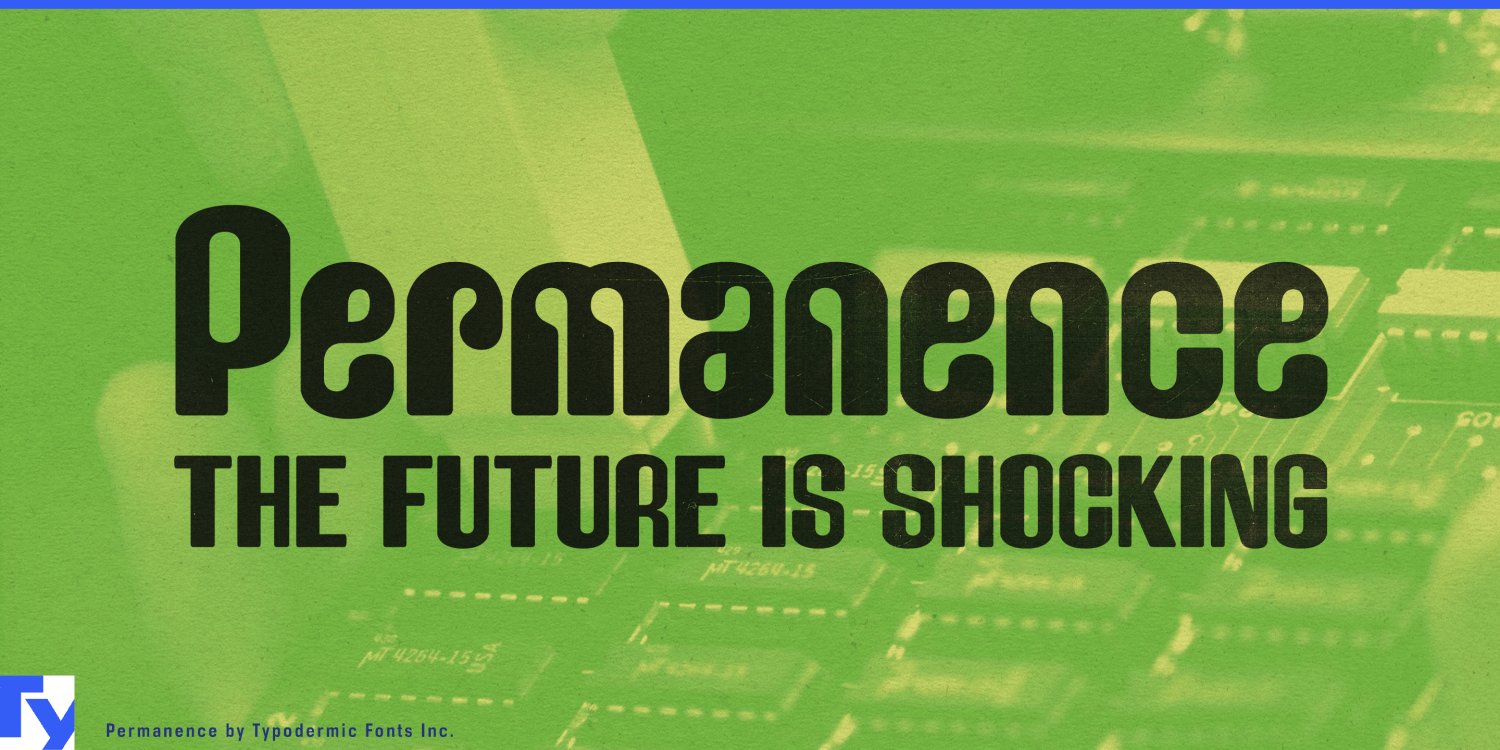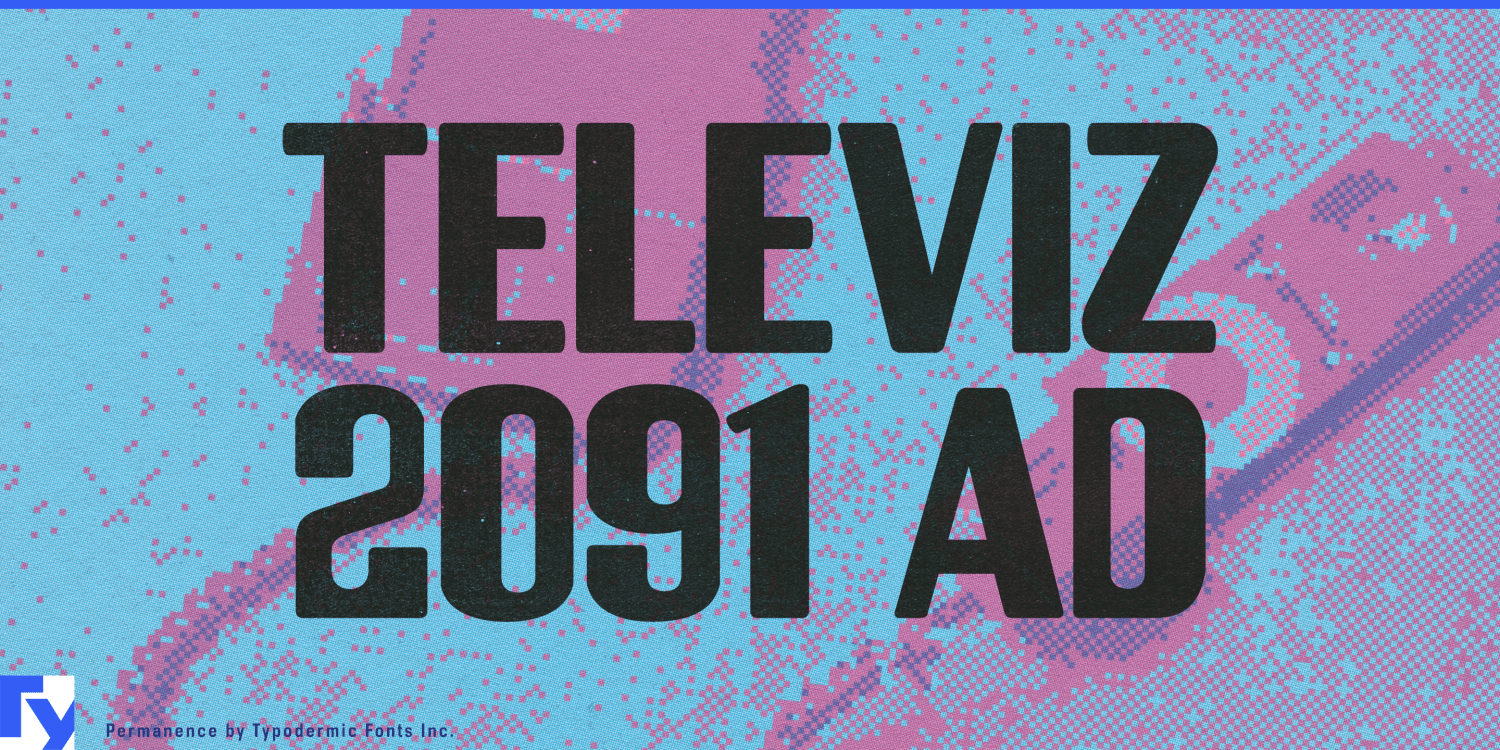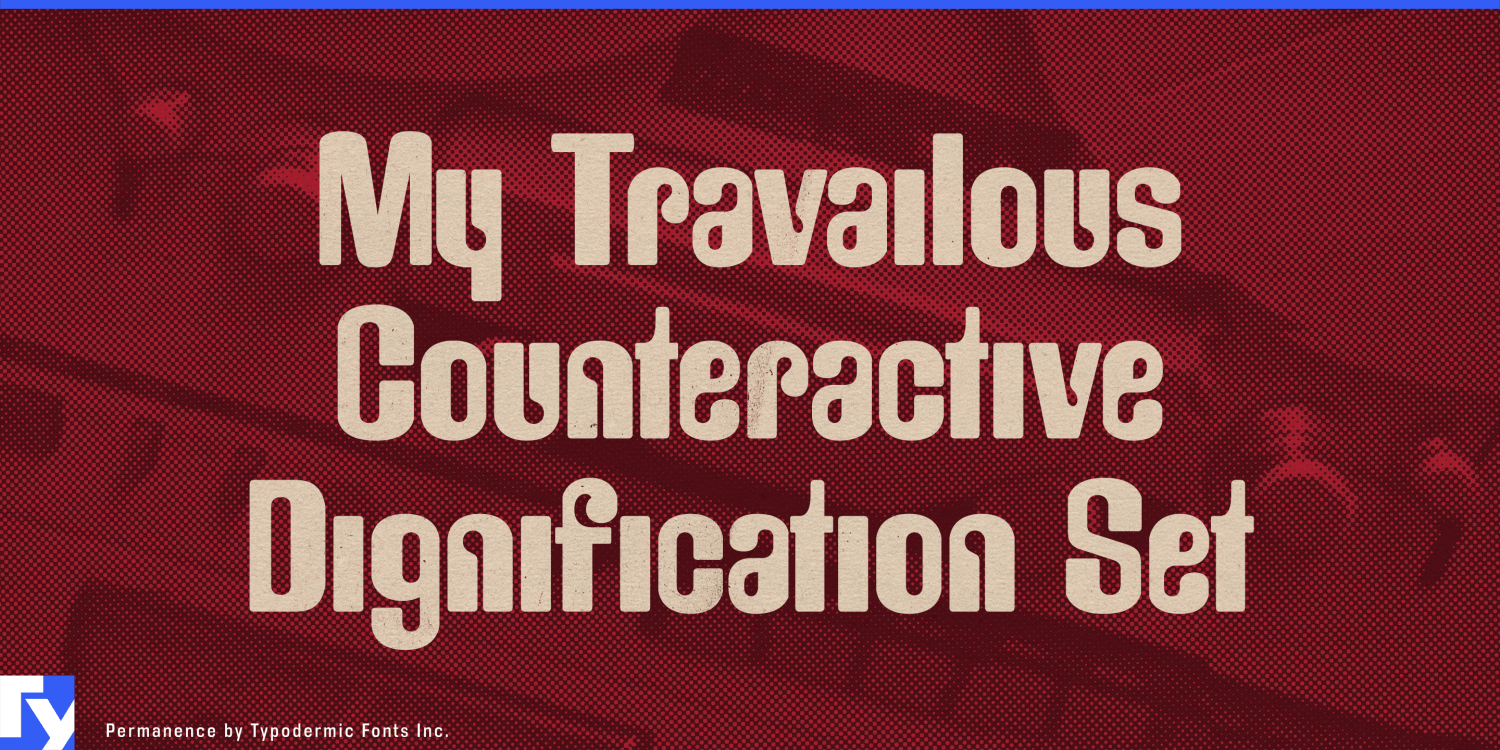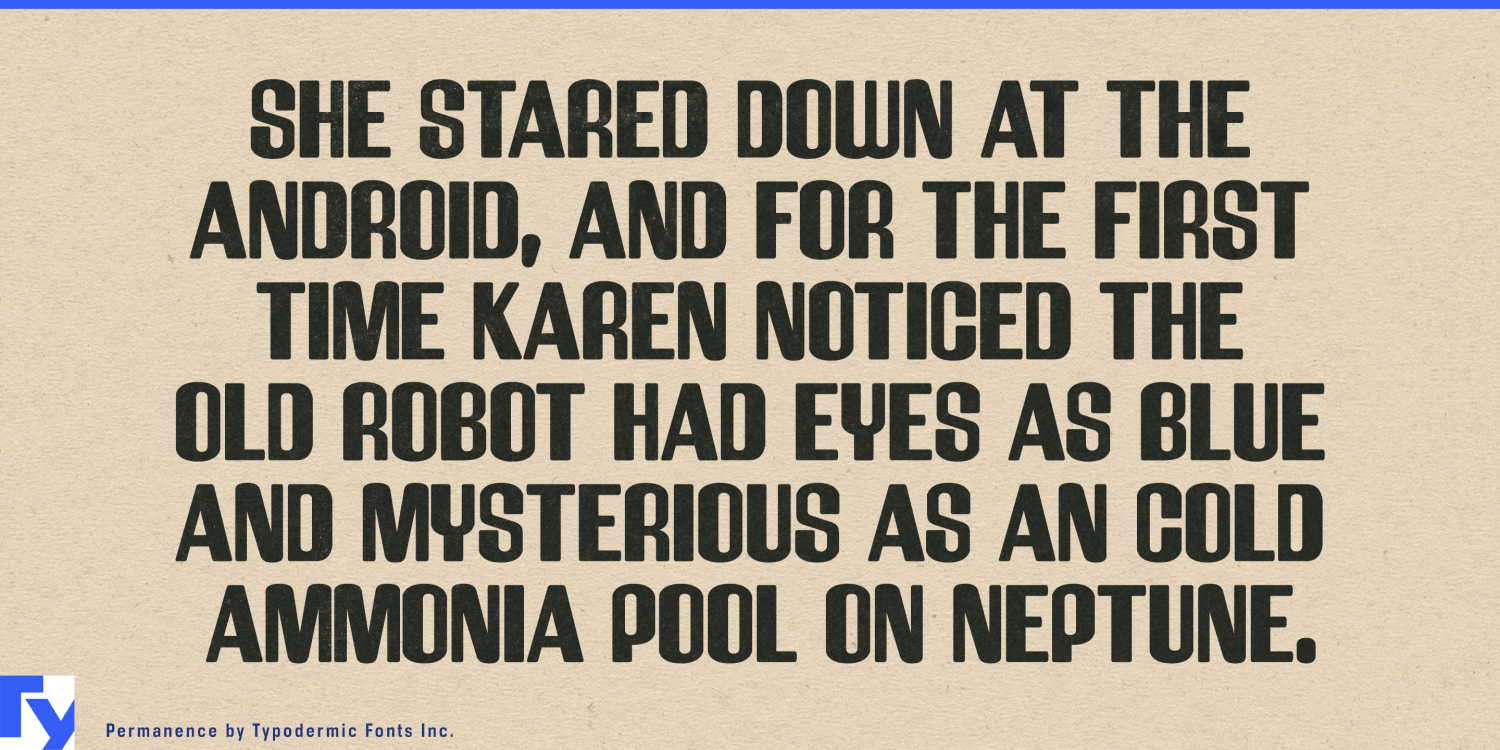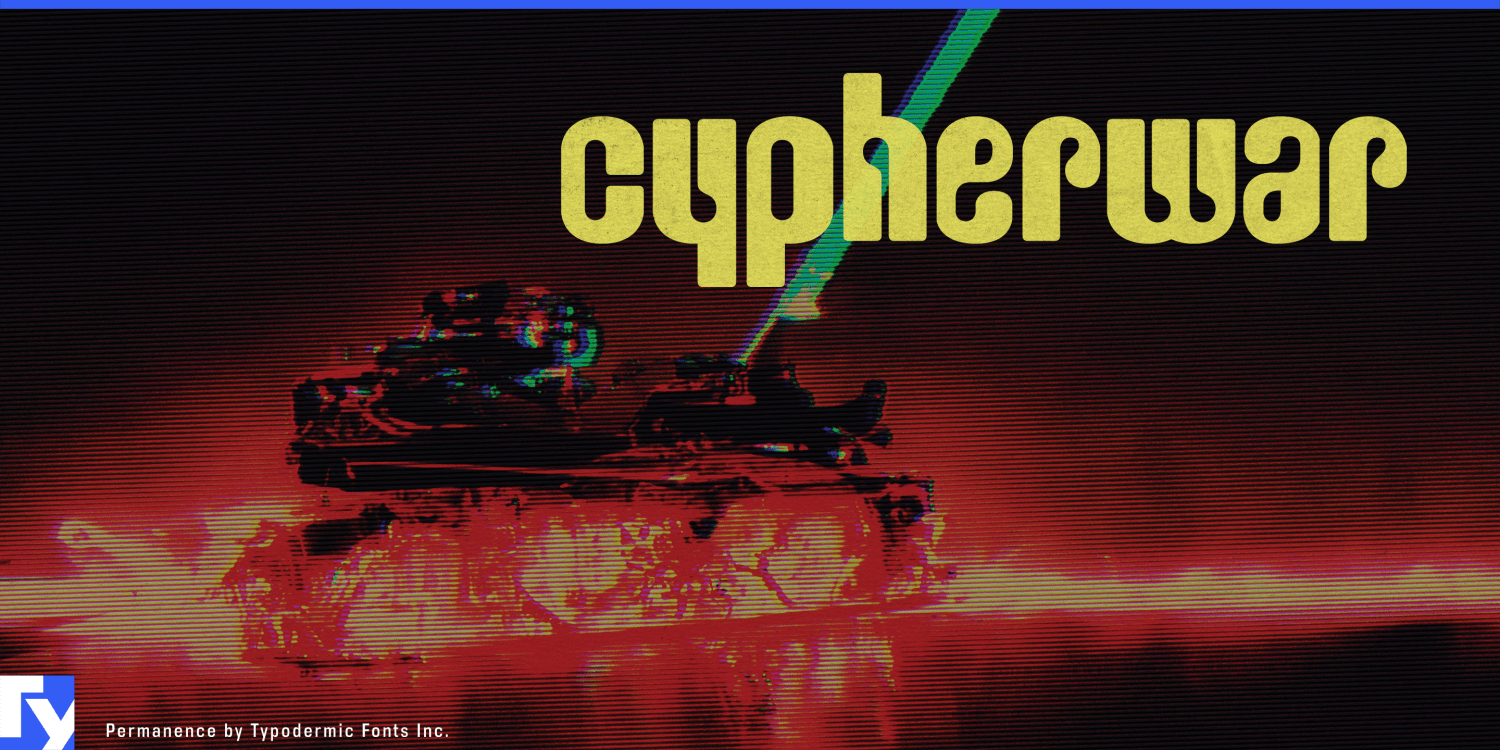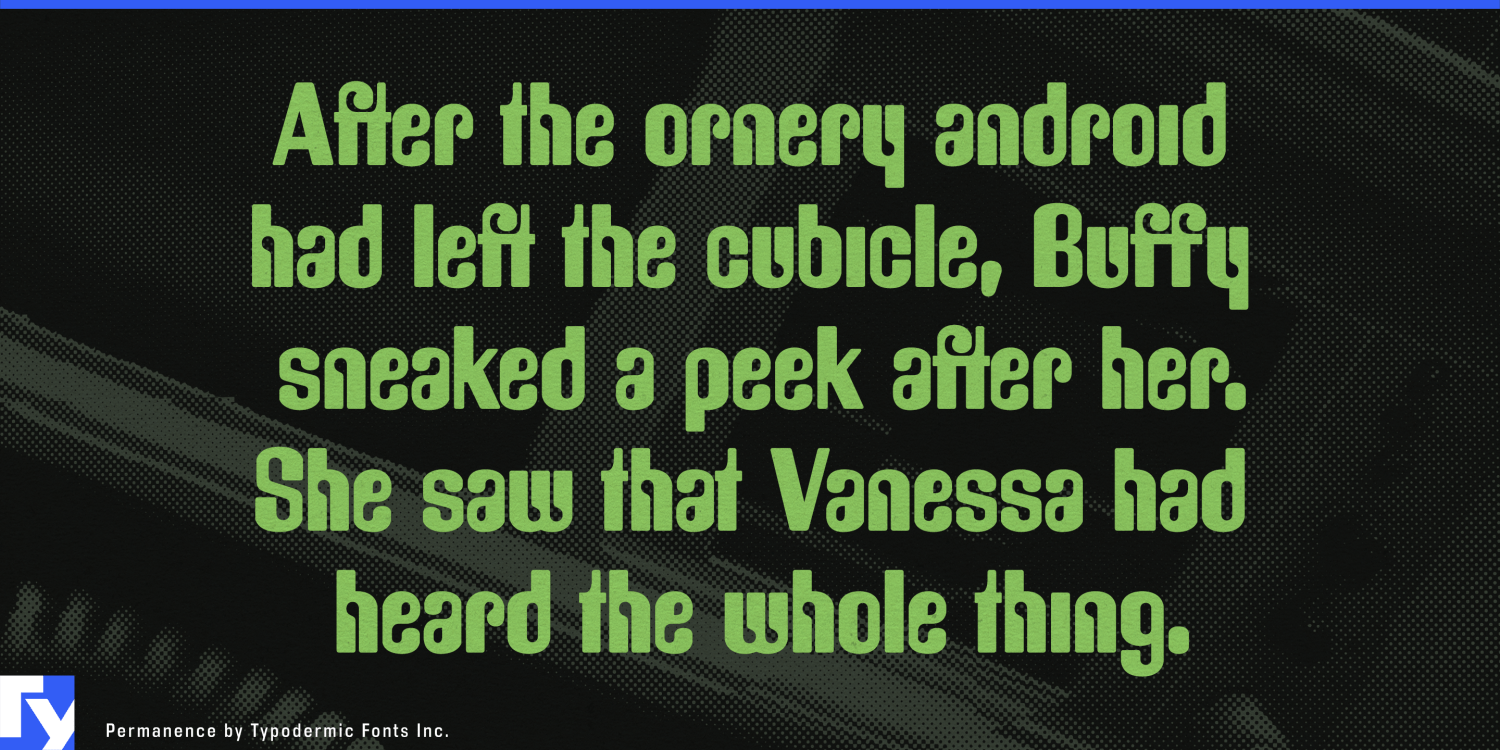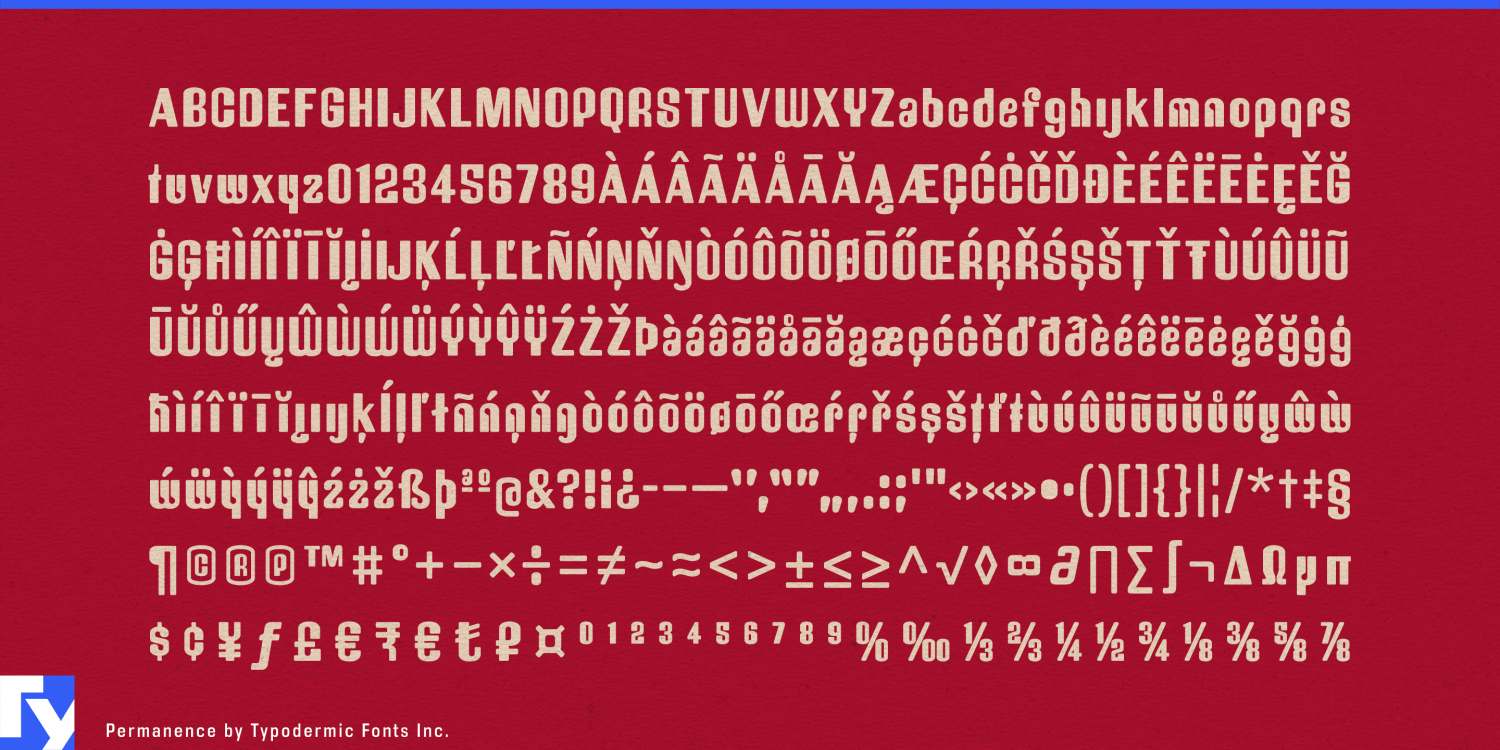
Permanence
Rounded display type often becomes childish by becoming simpler. Permanence takes a stranger route. Its broad, swollen forms have the friendliness of molded plastic, but underneath them sits a machine-age geometric skeleton. The result can feel cute, psychedelic and technical at the same time.
That combination suits beauty packaging that behaves more like a collectible object than a restrained cosmetic container. Lip oils, nail products, compact cosmetics, pimple-patch packs and playful skincare can use Permanence for product names and collection titles; translucent plastics, jelly finishes, chrome and iridescent surfaces all complement lettering that already looks almost molded.
Collectible toys push the same idea further. Blind-box figures, soft-vinyl characters, capsule toys, miniatures and keychains give Permanence a physical world that matches its proportions. Series names and packaging can feel chunky and approachable without slipping into preschool typography; the unusual geometric details keep the softness from becoming generic.
The same quality works for bag charms, resin jewellery, translucent sunglasses, playful watches and other accessories that blur the line between fashion and collectible object. Friendly technology provides another contemporary direction: desktop robots, smart pet devices, coding toys and educational electronics can use Permanence for names and packaging without falling back on severe angular techno lettering.
Permanence is strongest when something technical has been turned into an object of affection: a cosmetic compact, collectible figure, translucent accessory or small companion robot. Its heavy rounded geometry makes those products inviting, while the underlying construction keeps them from becoming merely bubbly.